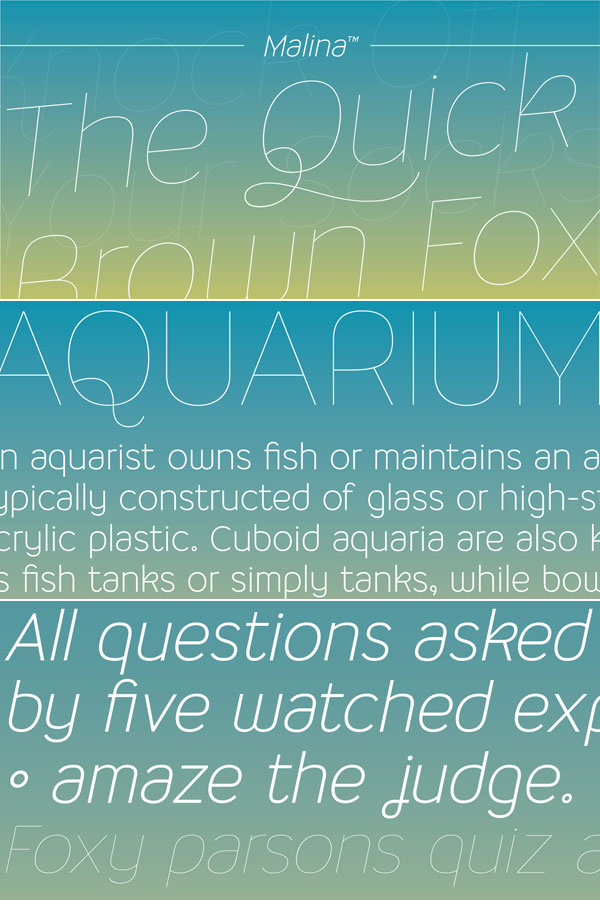
Malina, a sans-serif monoline font.
Type designer Thanarat Vachiruckul developed the Malina font for foundry Katatrad in 2014. It’s an elegant sans-serif monoline typeface. Malina’s shape provides some humanist font design specifications. Its clear design results in a legible typeface. Thanarat Vachiruckul’s goal was to create a hairline display font with an elegant look. The font family is currently available as Ultra Light and Light version plus matching italics. Both weights are well suited for presentation in large sizes. The Malina type family includes different alternative characters such as K, Q, and R. You can get this beautifully designed hairline typeface as Webfont and Desktop font.